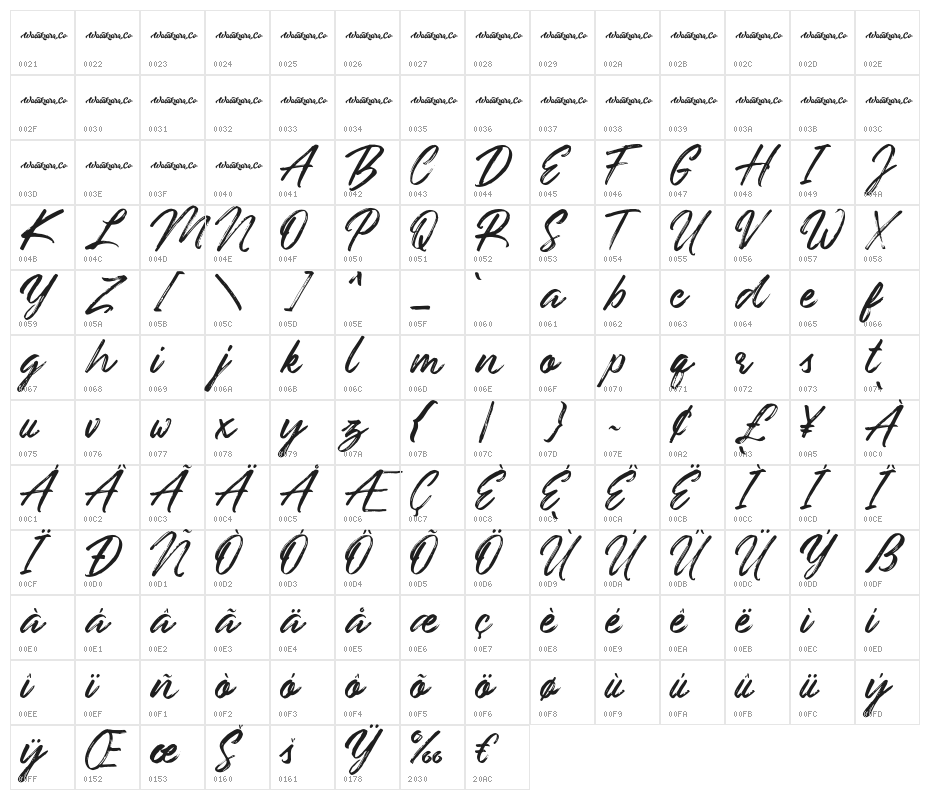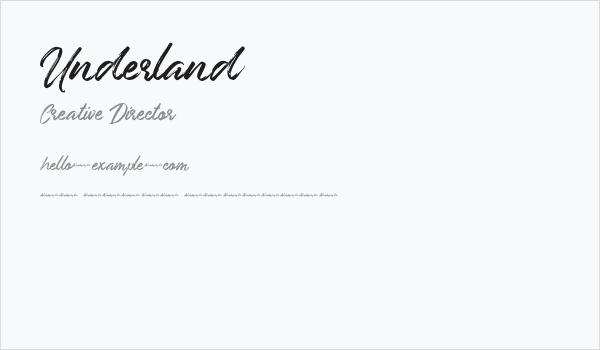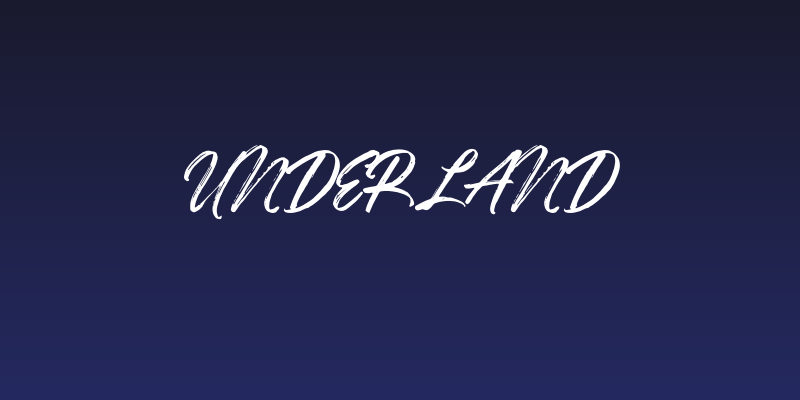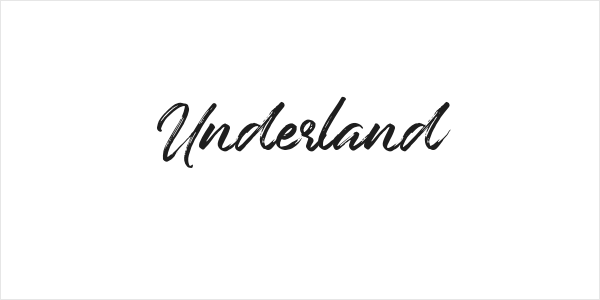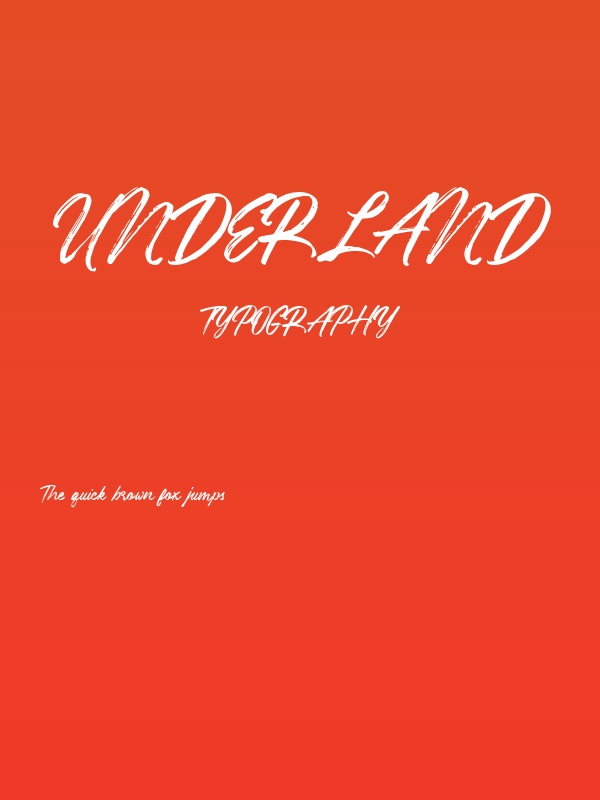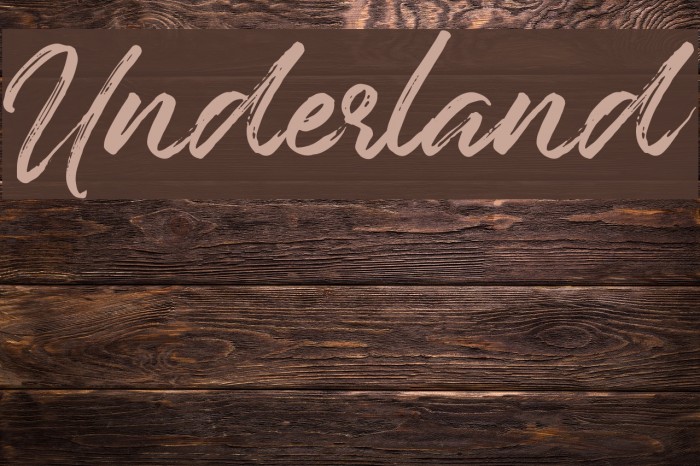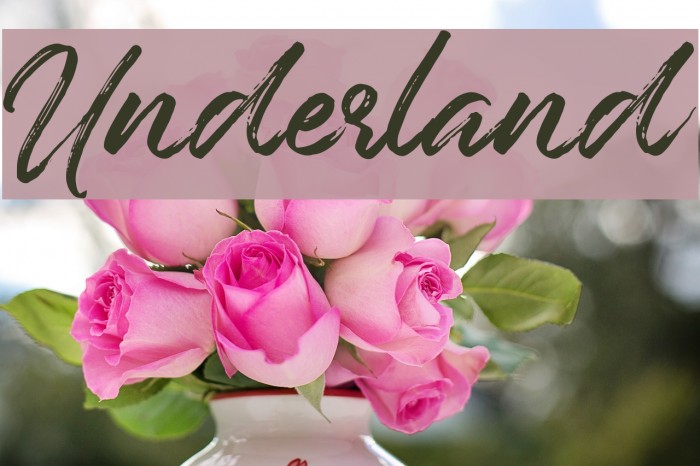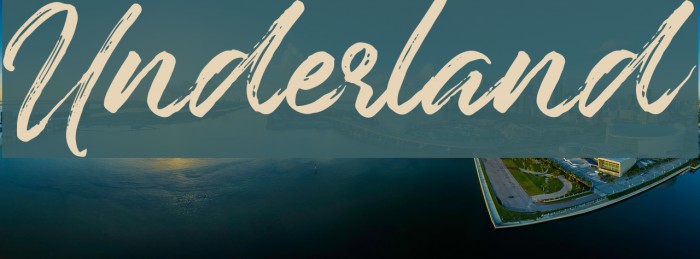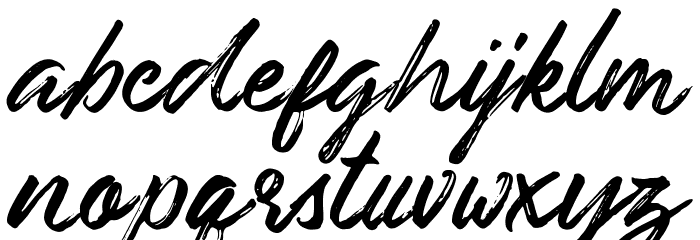
Underland Font
Underland Description
This font features a dynamic and expressive brush script style, characterized by its bold and energetic strokes. The letters are designed with a natural, hand-painted appearance, giving it a raw and artistic feel. The uppercase and lowercase letters flow seamlessly, maintaining a consistent rhythm and movement throughout. The font's texture adds depth and a sense of authenticity, making it ideal for projects that require a personal touch. Its unique style makes it stand out, perfect for creative and artistic applications.